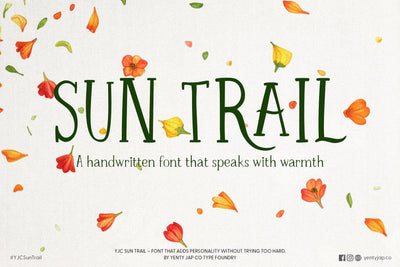
YJC Sun Trail - A Warm Rustic Handwritten Font for Branding & Crafts
YJC Sun Trail is a handwritten font made for moments that matter — the soft hello, the kind reminder, the branding that wants to feel a little more like a person and a little less like a pitch.
Crafted with steady strokes, gentle curves, and a relaxed rhythm, Sun Trail is warm without being messy, clear without being cold. It’s the kind of typeface that knows when to speak up and when to let the design breathe.
With a library of custom ligatures, Sun Trail adds natural movement to your lettering, making your words feel thoughtful, connected, and human — whether you're designing a logo, a cookie label, or the world’s kindest quote post.
- 20+ discretionary ligatures for smooth lettering flow
Let your words walk softly, but leave a mark.